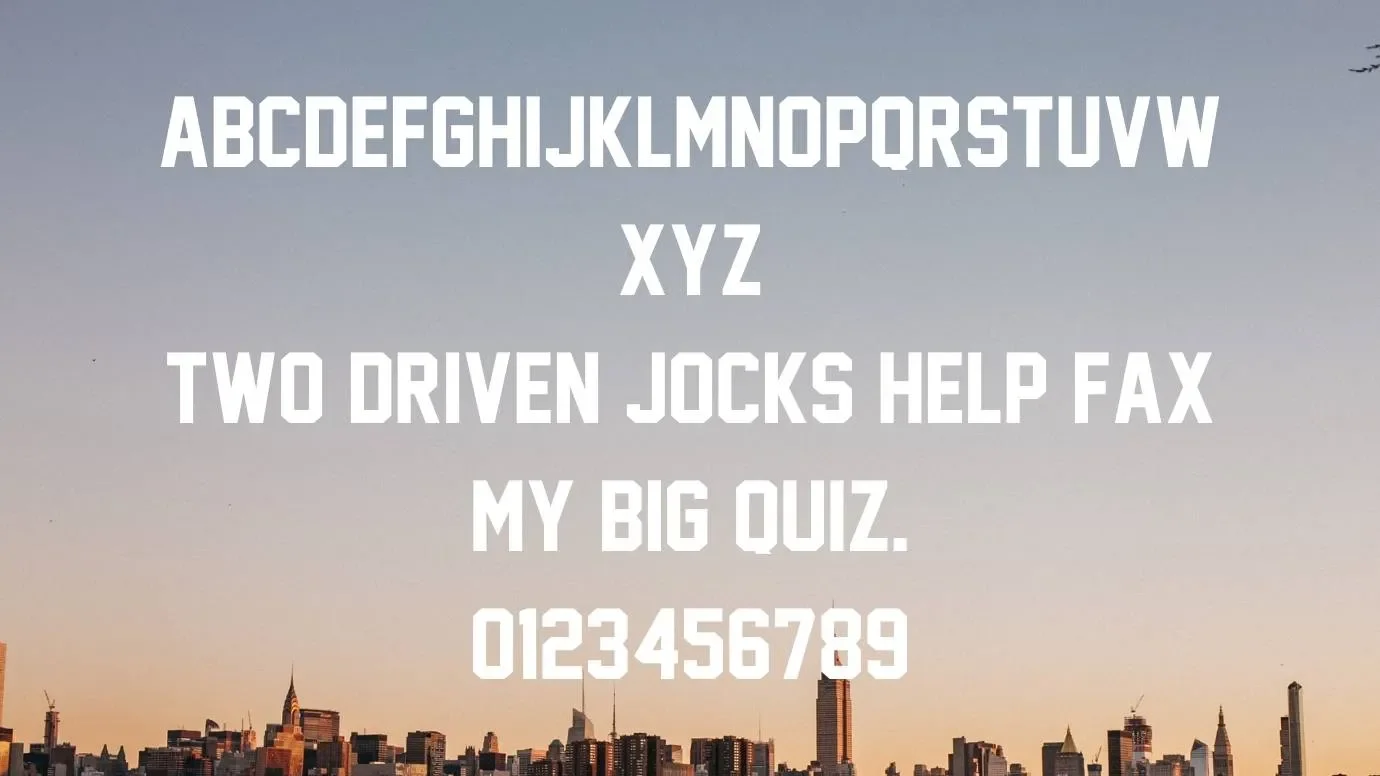
Lets we are presenting a stylish and cozy font family that earns massive fame in the designing market is known as New York Giants Font. This marvelous font belongs to the Display typeface. This modern font was designed after the hard work of brilliant designer Mohammed Rahman in the year 2010.
This is the most famous and popular football team in America. This team was selected by NFL in the year 1925. This attractive font is used for the logo of the famous football team. A huge variety of designers keeps desires to use this font in their projects and functions.
Different football team makes their logo by using this reputable font family. This classy was also known as Jersey Font. This class font comes in more than 66 unique and attractive characters. Some of its special characters are uppercase, lowercase, symbol, and icons. These characters show the best results in all the projects.
This keen and clean feature font provides an online generator tool that helps in different graphic designs. This tool gives the softest and most impressive look to all of your graphic designs.
Reason to Use New York Giants Font
Because of the attractive and impressive look, this font is used in plenty of places and locations. First choice of various brands and designers to use this font in their projects. You can use this awesome font family for various designs such as logos of many institutions, book covers, comic covers, and so on.
This cozy typeface is best for various headings and titling. YouTubers use this font family for their thumbnails. This stylish font is used for various Social media posts. Most famous football teams of America used this font for designing logos.
What type of font is New York Giants Font?
This is a display typeface that was designed by a Muslim designer known as Mohammed Rahman and published in 2010.